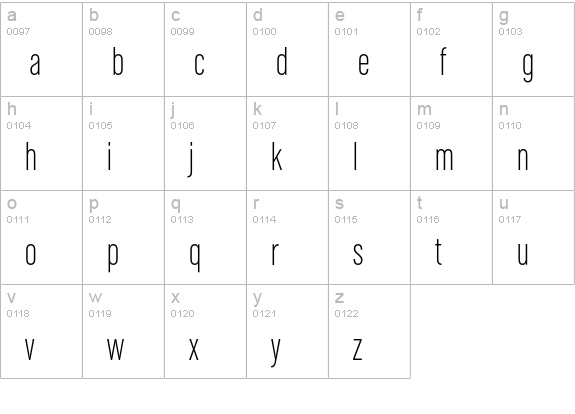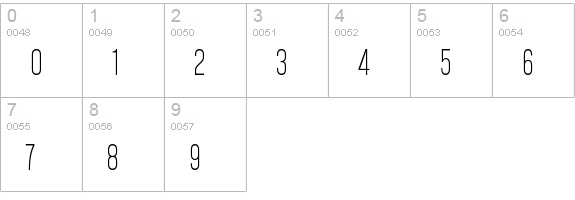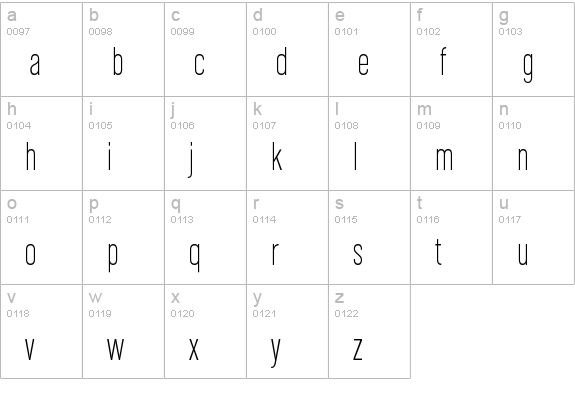
ChaletComprime MilanSixty Font Details
The ChaletComprime MilanSixty font is a modern and sleek typeface that exudes sophistication and elegance. With its clean lines and stylish curves, this font is perfect for adding a touch of luxury to any design project. The tall and narrow letterforms of MilanSixty make it stand out, giving your text a unique and eye-catching appearance. What sets ChaletComprime MilanSixty apart is not just its striking design, but also the fact that it is available for free download at FontsMarket.com. This means that you can easily access this premium font without any cost, making it a valuable addition to your font collection. Whether you're working on a branding project, a website design, or any other creative endeavor, ChaletComprime MilanSixty is sure to elevate your work and leave a lasting impression. Download this font today and discover the endless possibilities it offers for your designs.